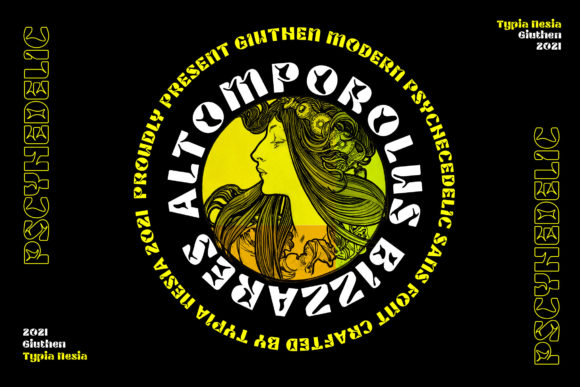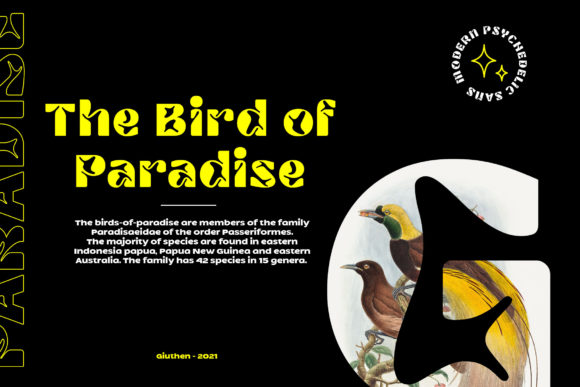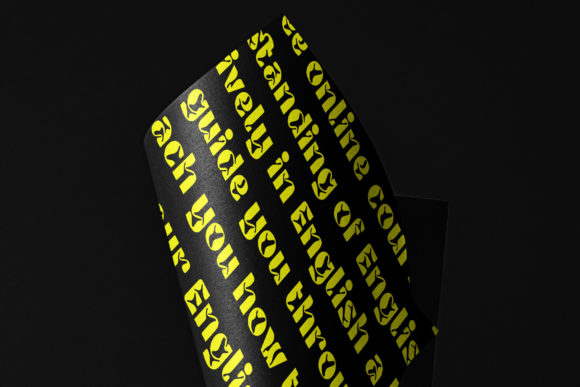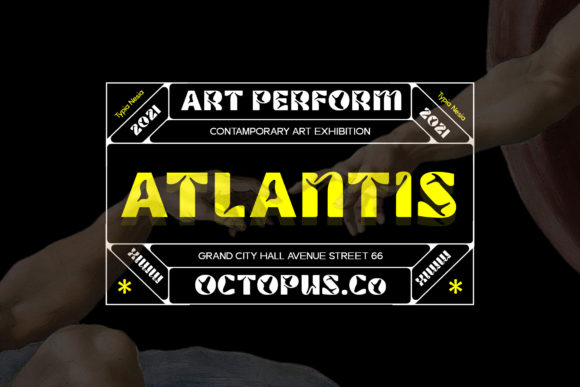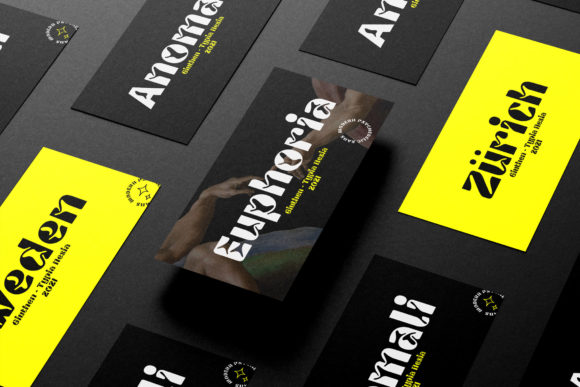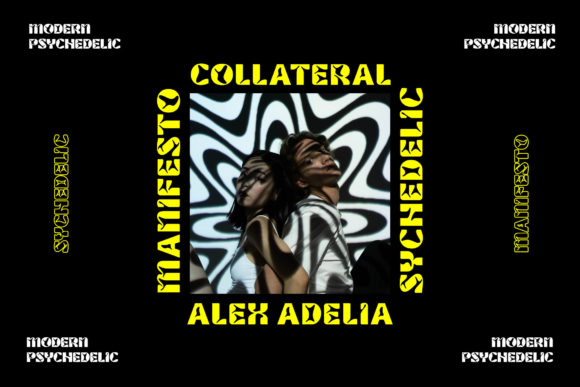
Introducing Giuthen Font: The Ultimate Display Font for Bold Designs
Are you tired of using the same old fonts for your designs? Look no further! Giuthen Font is here to revolutionize your creative projects with its modern, psychedelic, and thick lettered display font. This stunning font is perfect for designers and crafters who want to add a bold touch to their work. In this article, we’ll dive into the features and benefits of Giuthen Font, and explore its endless possibilities.
What is Giuthen Font?
Giuthen Font is a modern display font that boasts a unique and eye-catching design. Its thick letters and psychedelic style make it perfect for creating bold and striking designs. Whether you’re working on a poster, flyer, or print project, Giuthen Font is sure to grab attention and leave a lasting impression.
Key Features of Giuthen Font
- Modern and Psychedelic Design: Giuthen Font features a unique and contemporary design that’s perfect for creating bold and striking designs.
- Thick Lettered: The font’s thick letters make it highly legible and perfect for display purposes.
- Versatile: Giuthen Font can be used for a wide range of design projects, from posters and flyers to prints and more.
- Easily Customizable: The font is easily customizable, allowing you to adjust the size, color, and style to fit your design needs.
Benefits of Using Giuthen Font
So, why choose Giuthen Font for your design projects? Here are just a few benefits of using this amazing font:
- Adds a Bold Touch: Giuthen Font adds a bold and striking touch to your designs, making them stand out from the crowd.
- Increases Legibility: The font’s thick letters and clear design make it highly legible, even at large sizes.
- Versatile and Flexible: Giuthen Font can be used for a wide range of design projects, from posters and flyers to prints and more.
- Saves Time: With Giuthen Font, you can create stunning designs in no time, thanks to its easily customizable and user-friendly design.
Endless Possibilities with Giuthen Font
So, what can you create with Giuthen Font? The possibilities are endless! Here are a few ideas to get you started:
- Eye-Catching Posters: Create stunning posters that grab attention and leave a lasting impression.
- Bold Flyers: Design bold and striking flyers that stand out from the crowd.
- Stunning Prints: Use Giuthen Font to create beautiful and eye-catching prints that showcase your creativity.
- Branding and Logo Design: Giuthen Font can also be used for branding and logo design, adding a bold and modern touch to your brand identity.